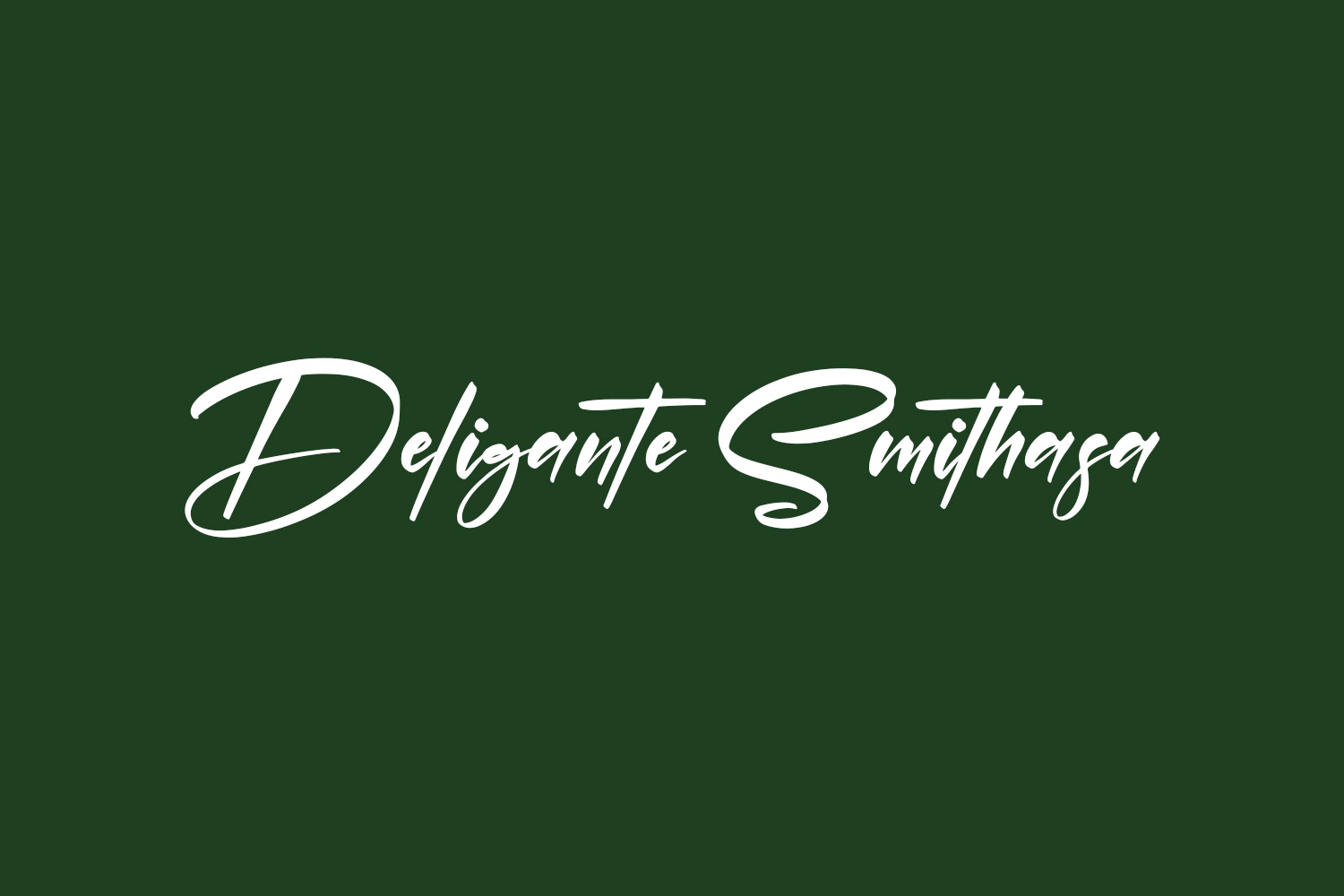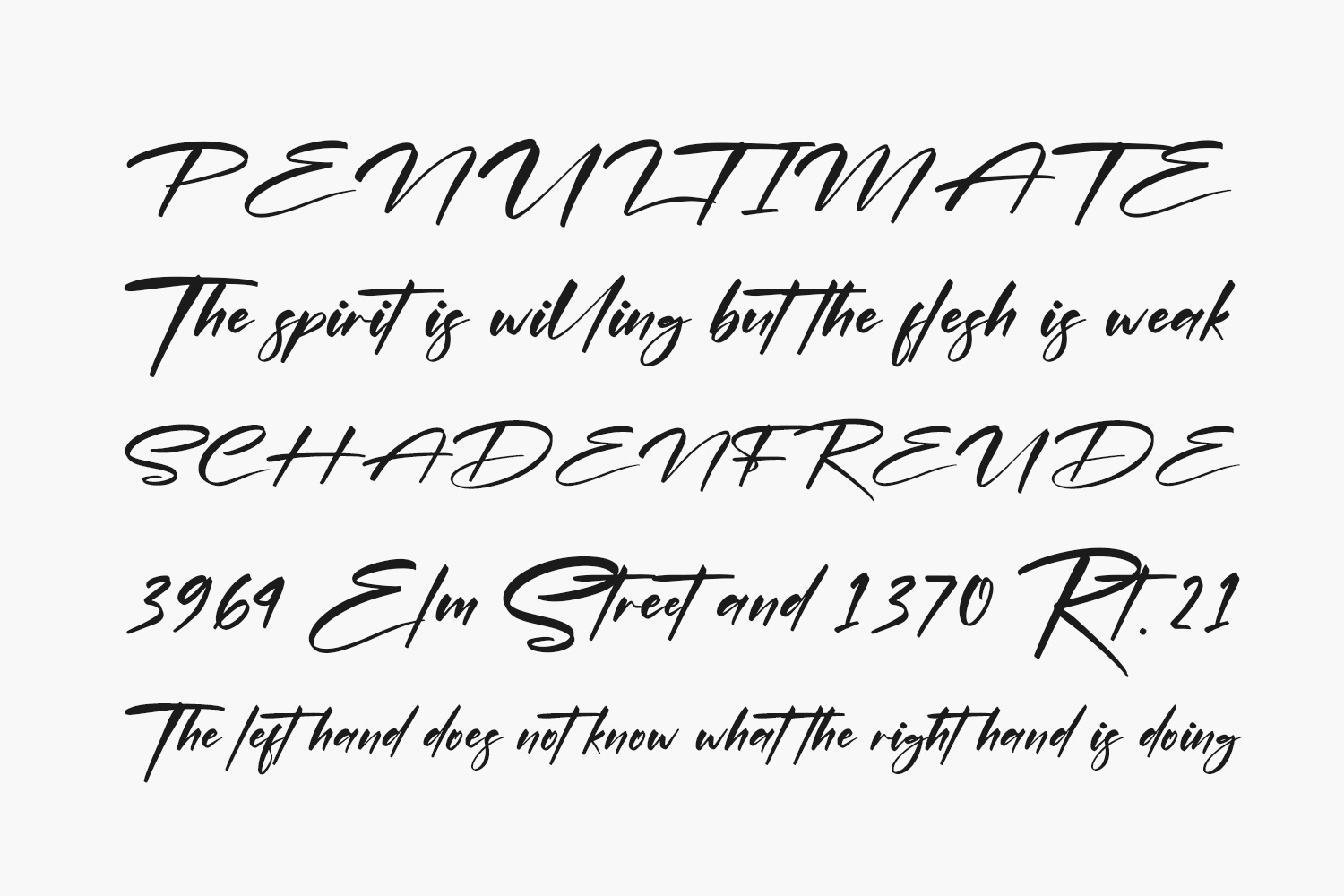
Deligante Smithasa Free Font Family is a delicate, elegant, and flowing handwritten font. It has beautiful and well balanced characters and as a result, it matches a wide pool of designs. Add it to your most creative ideas and notice how it makes them come alive. Deligante Smithasa Free Font Family was designed by Perspectype Studio and is free for personal use only. Please purchase the full version for commercial use.
Deligante Smithasa Regular The quick brown fox jumps over the lazy dog
Deligante Smithasa Italic The quick brown fox jumps over the lazy dog